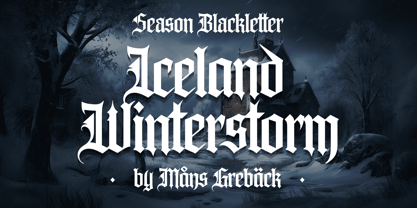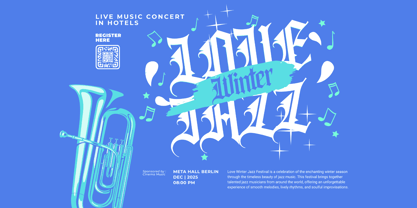
Iceland Winterstorm
by Mans Greback
The Iceland Winterstorm Font Family was designed by Måns Grebäck and published by Mans Greback. Iceland Winterstorm contains 2 styles and family package options.
Iceland Winterstorm is a bold and captivating blackletter typeface, merging medieval gothic artistry with the raw, icy beauty of winter. Its sharp, angular forms resemble frost-covered edges, evoking the chill of snow-laden landscapes and the dramatic allure of winter storms. The lettering feels both harsh and elegant, carrying a cool, crystalline precision that mirrors the frozen wilderness.
Perfect for evoking a sense of medieval heritage, its intricate style is imbued with a cold, cutting aesthetic, making it ideal for designs celebrating wintertime, Christmas, and the snow season. The font captures the essence of icy winds sweeping across a frosted land, seamlessly blending tradition with seasonal charm.
The font is built with advanced OpenType functionality and guaranteed top-notch quality, containing stylistic and contextual alternates, ligatures and more automatic and manual features; all to give you full control and customizability.
It has extensive lingual support, covering all Latin-based languages, from North Europa to South Africa, from America to South-East Asia. It contains all characters and symbols you'll ever need, including all punctuation and numbers.
Designed by Mans Greback, this typeface brings a frosty edge to classic gothic design, crafting a winter atmosphere in every character.